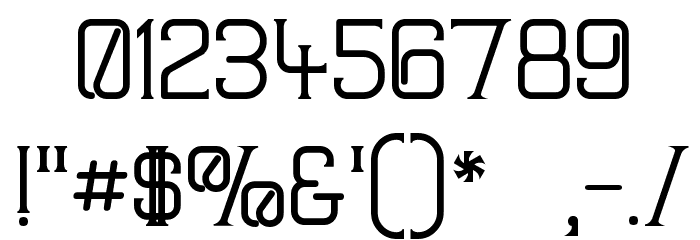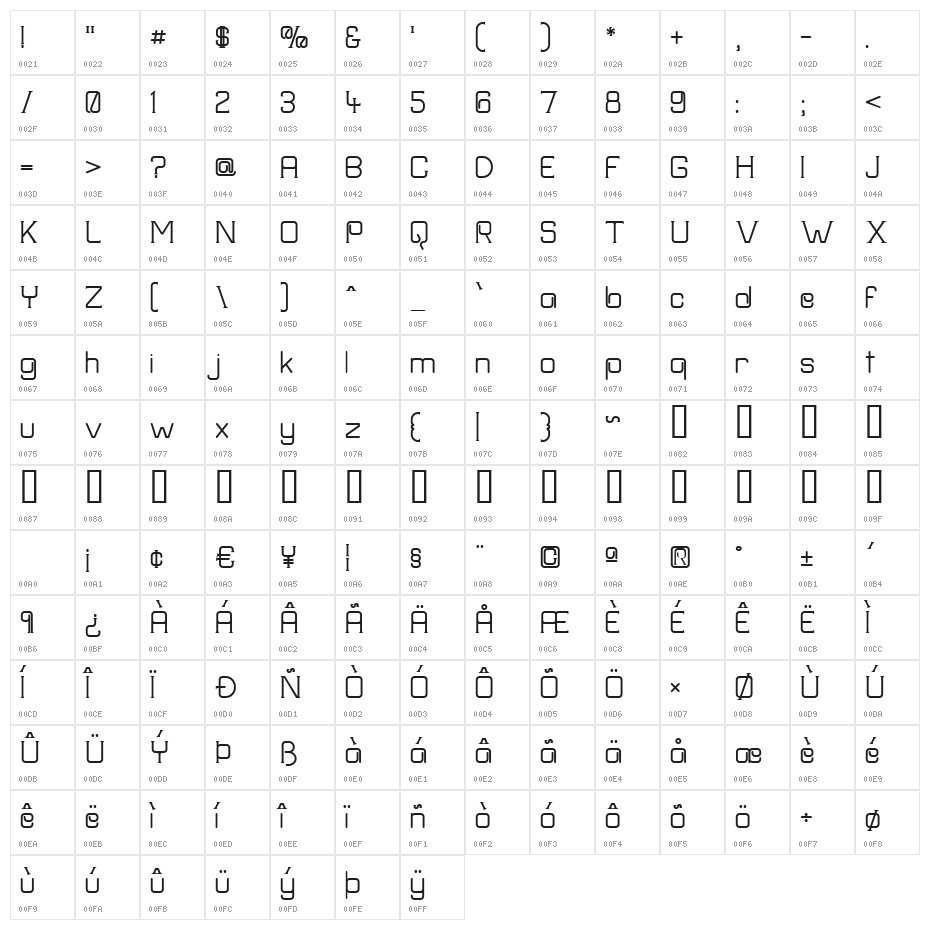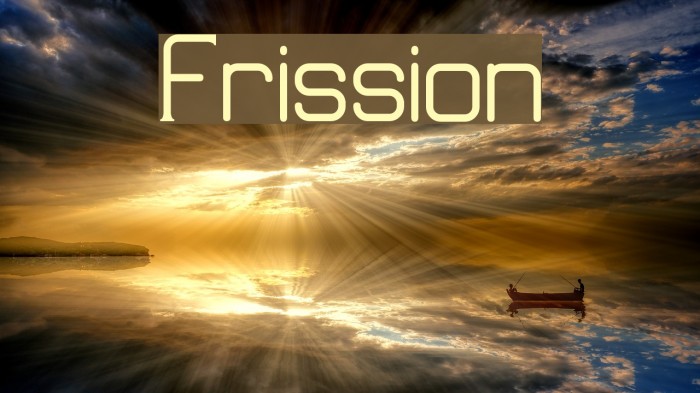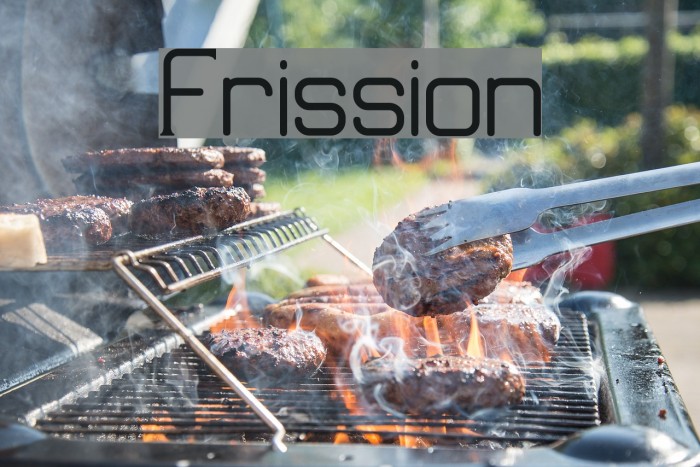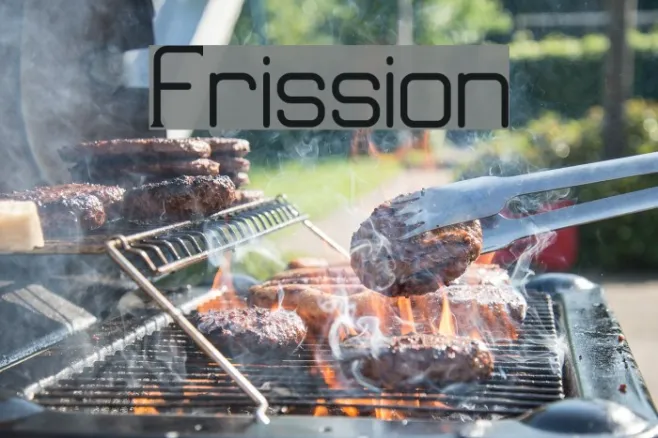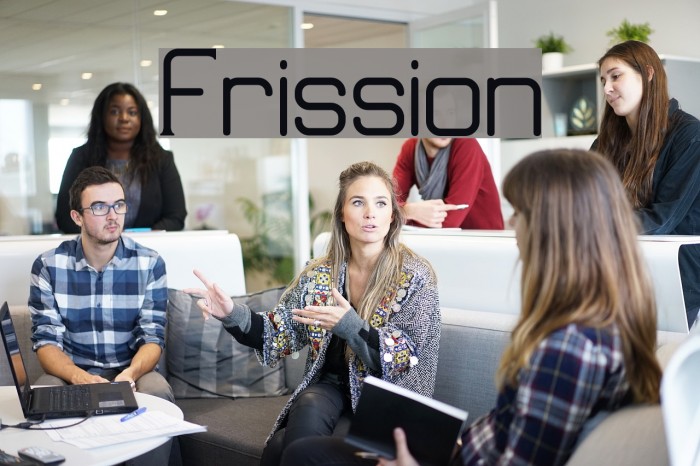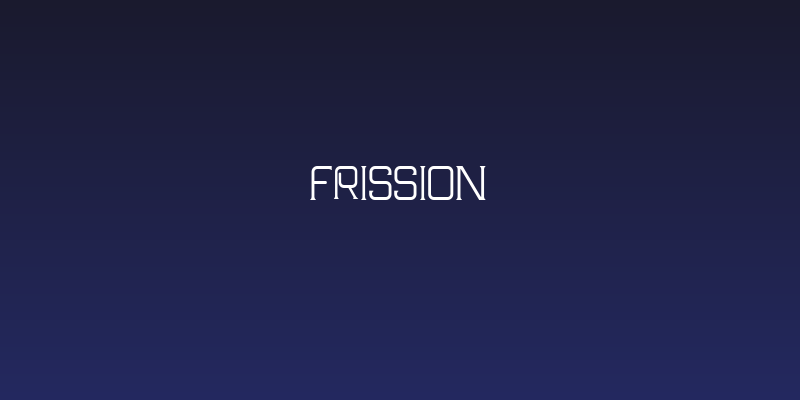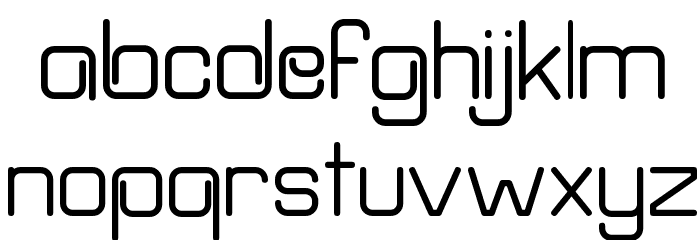
Frission Font
Frission Description
This font features a modern, geometric design with a clean and minimalist aesthetic. The characters are constructed with uniform line thickness, creating a balanced and harmonious look. The uppercase letters have a distinct, angular appearance, while the lowercase letters maintain a rounded, softer form. The numerals and special characters are designed to complement the overall style, with consistent line weights and spacing. This font is versatile and can be used for a variety of design projects, offering a contemporary and sleek appearance.
| Use Case | Headlines, Logos, Digital Interfaces |
| Proposed Projects | Ideal for branding, digital interfaces, advertising, and editorial design projects. |